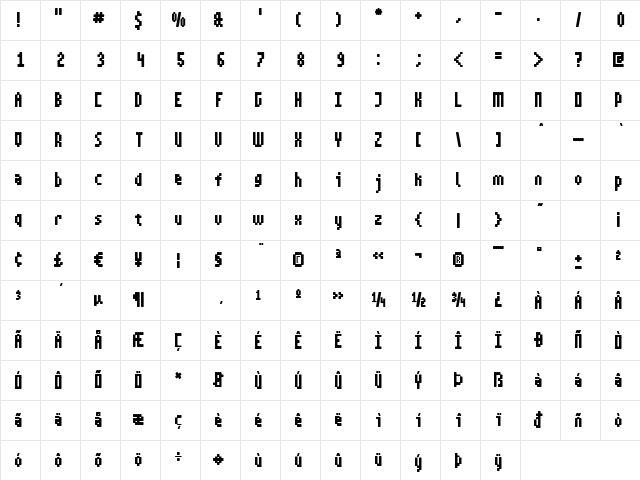
ZEro Bold Free Font
ZEro Bold
Design Context for ZEro
ZEro is a composed and adaptable typeface that performs quietly and consistently across a wide range of design contexts. Its bold stroke weight gives it real presence on the page.